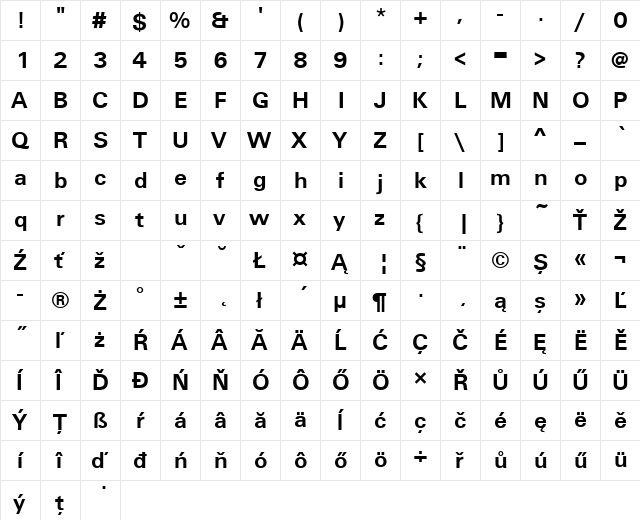
UnitusTEE Bold
Design Context for UnitusTEE Typeface
UnitusTEE offers clean, dependable letterforms without strong stylistic allegiance, making it a practical choice for designers who need flexibility. The heavy weight commands attention and anchors typographic hierarchies.